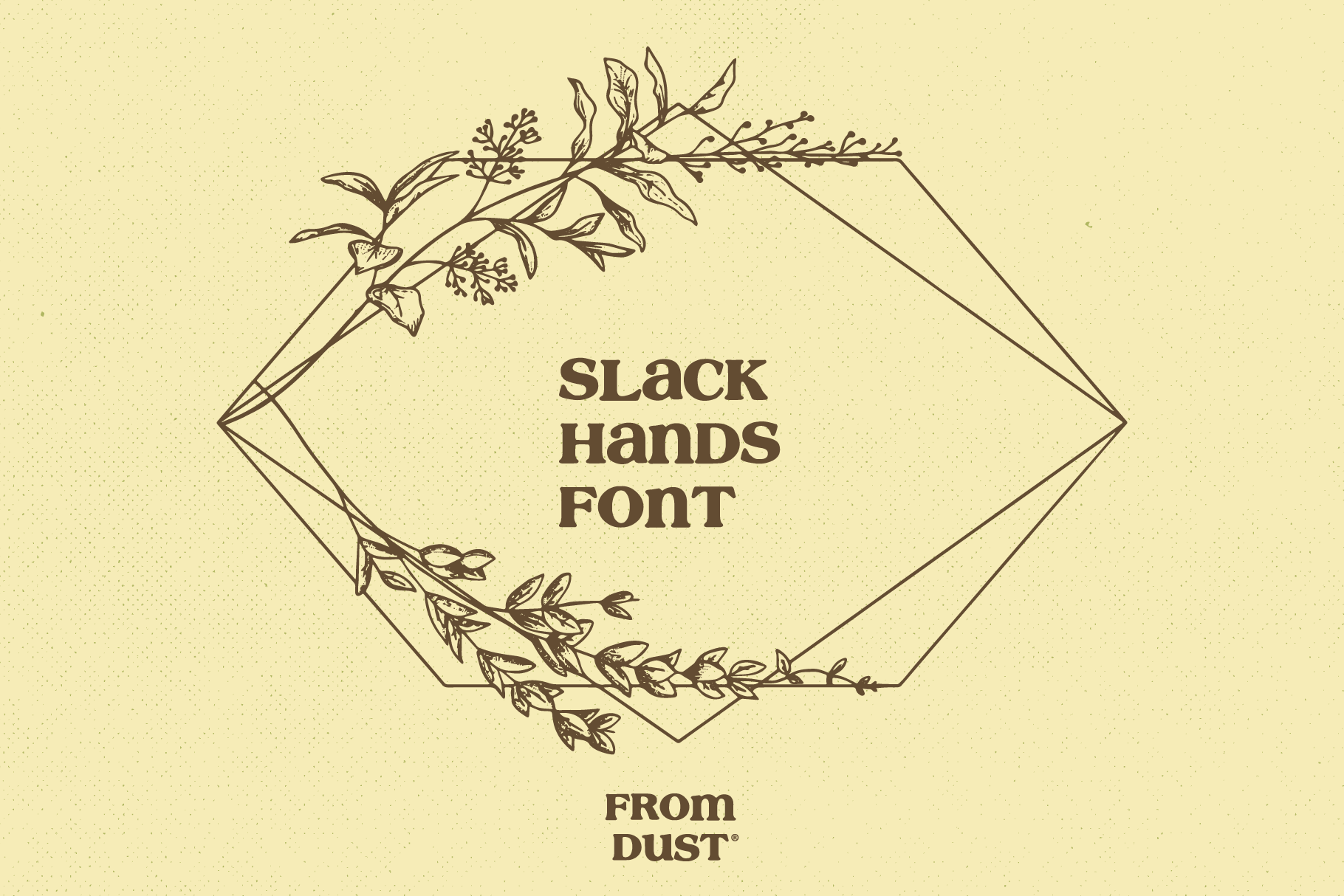
FDS - SLACK HANDS FONT
Introducing: Slack Hands. A cute, rustic handwritten font. Perfect for overlaying on social media images or product packaging.